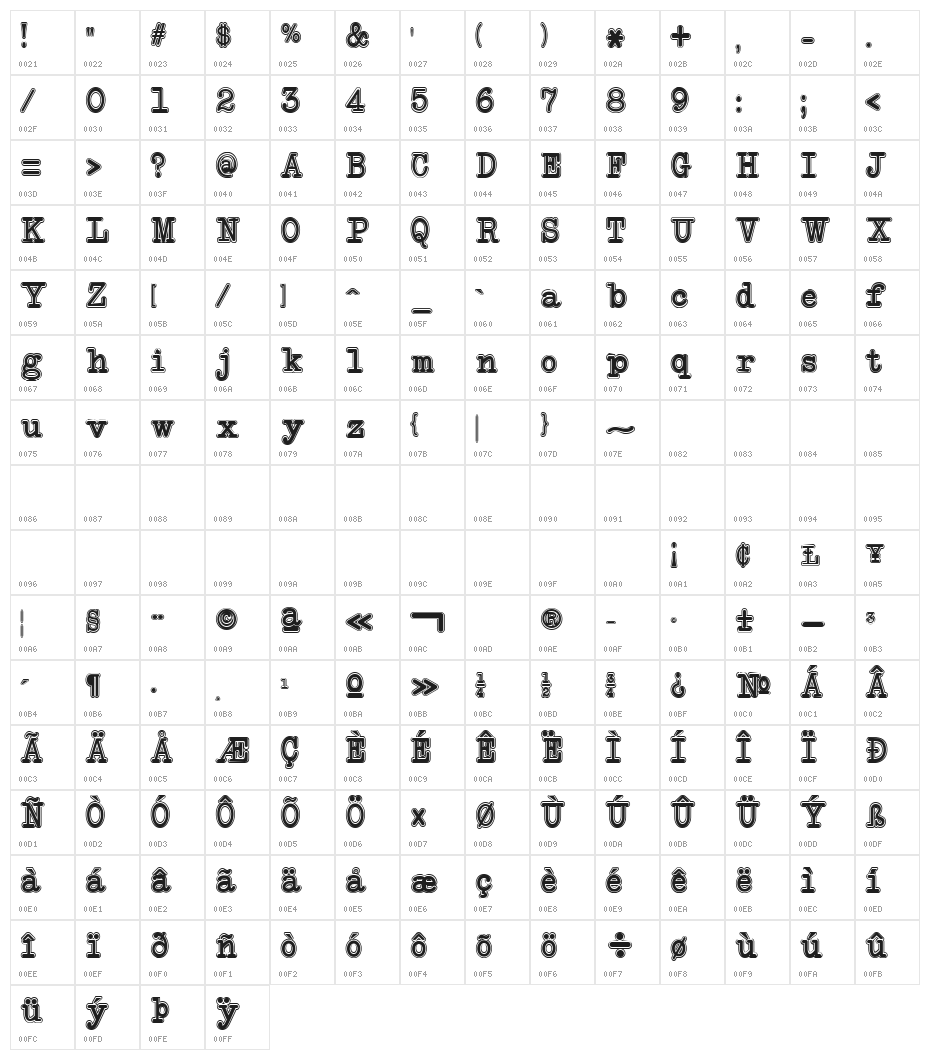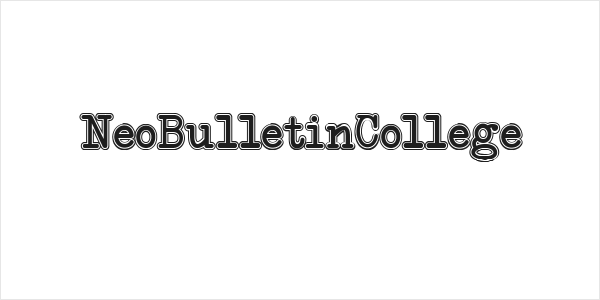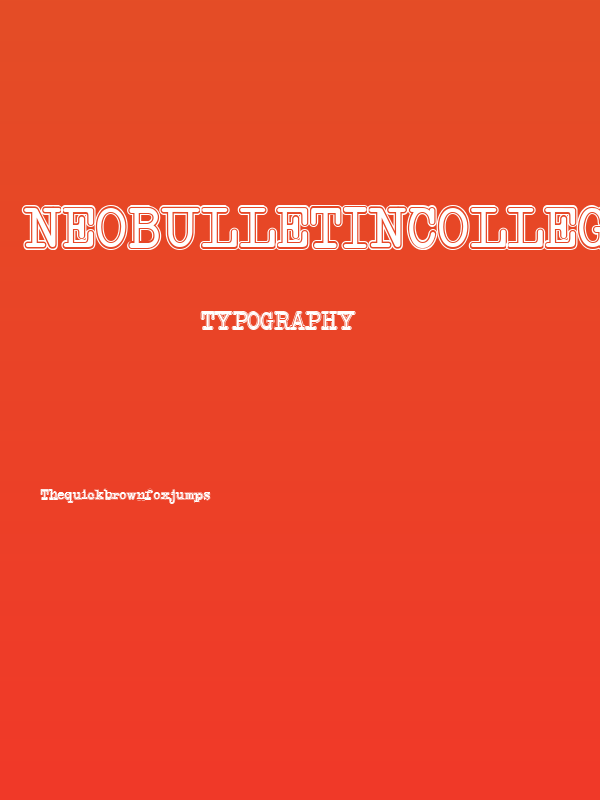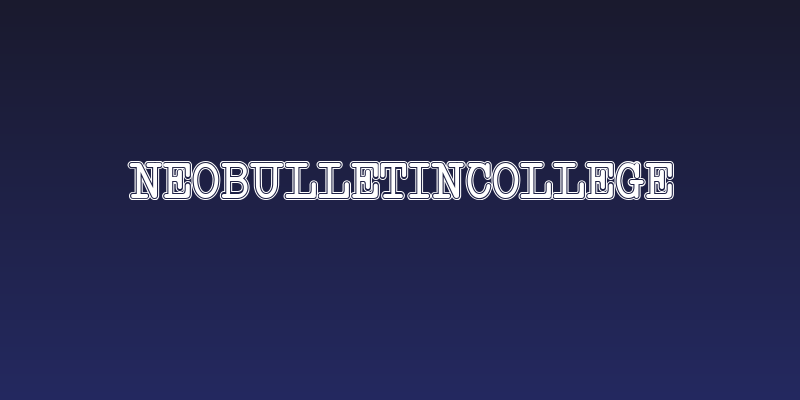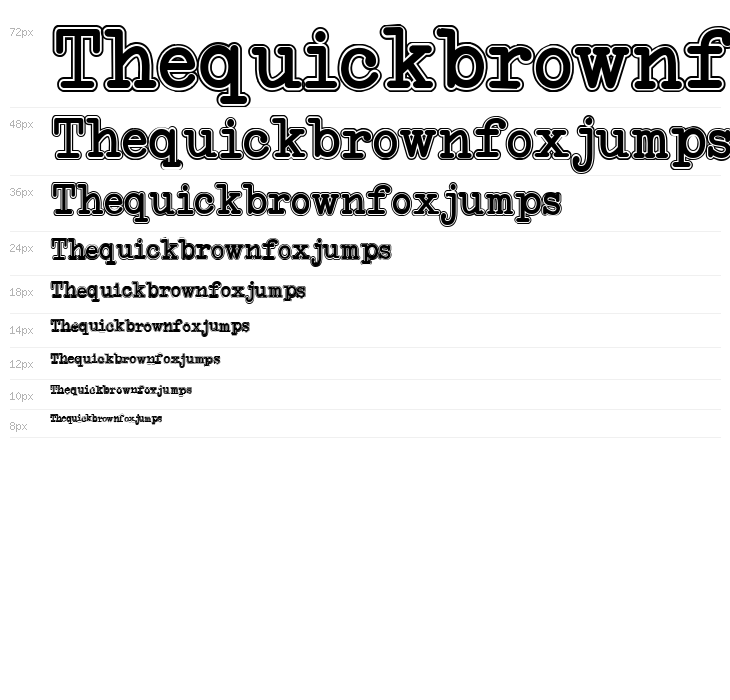
NeoBulletin College Font
NeoBulletin College Description
This font features a bold, collegiate style with a strong, impactful presence. The characters are outlined, giving them a distinct, layered appearance that adds depth and dimension. The uppercase and lowercase letters maintain a consistent style, with rounded serifs that soften the otherwise robust design. The numerals and special characters follow the same aesthetic, ensuring uniformity across all glyphs. The font's design is reminiscent of traditional varsity or sports team lettering, making it ideal for projects that require a sense of strength and tradition.